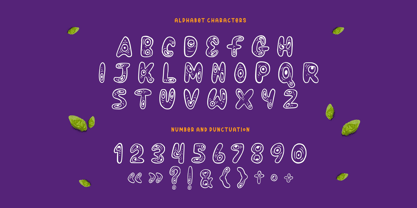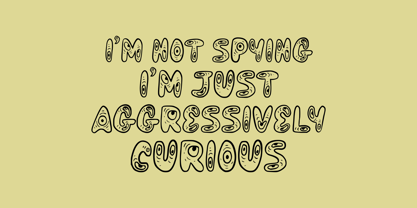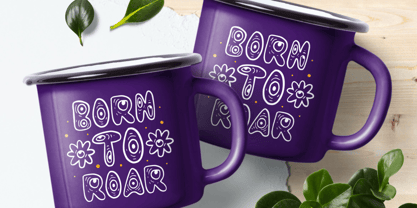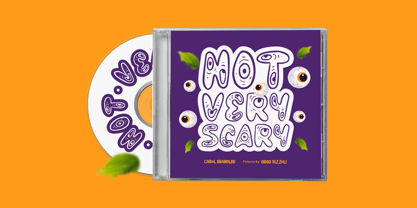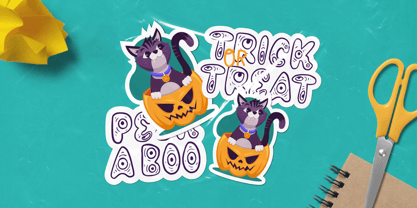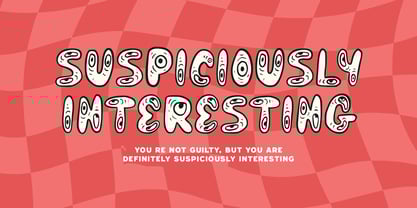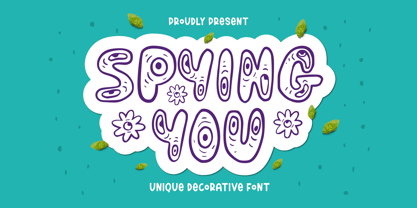
Spying You
by Imoodev
The Spying You Font Family was designed by Aulia Savira Putri and published by Imoodev. Spying You contains 1 styles. More about this family
"Spying You" is a quirky decorative display font, rounded, bubbly forms are sprinkled with spirals, dots “eye” motifs and playful shapes, almost as if the letters are looking right back at you.
This font to balance friendly fun with a slight spooky-cute undertone, making it a perfect fit for children’s products, party invitations, sticker designs, upbeat branding, merchandise, decorative headings, banners, social media graphics, or any halloween themed project.